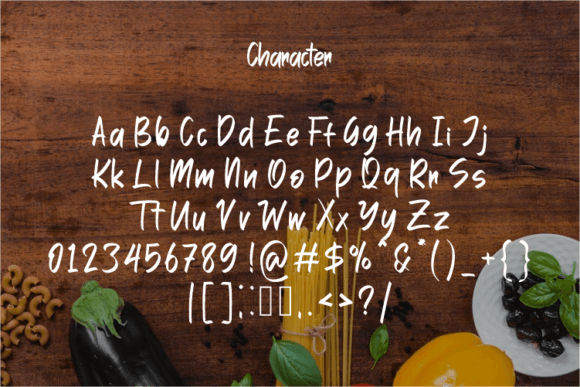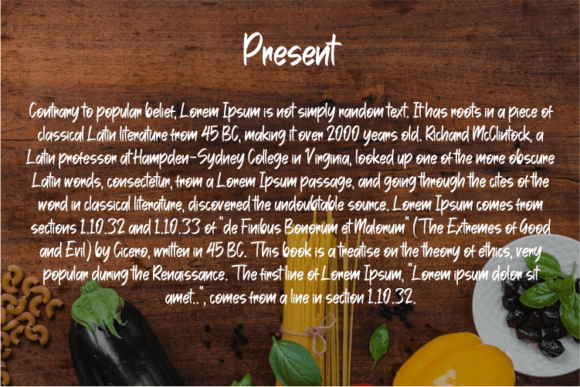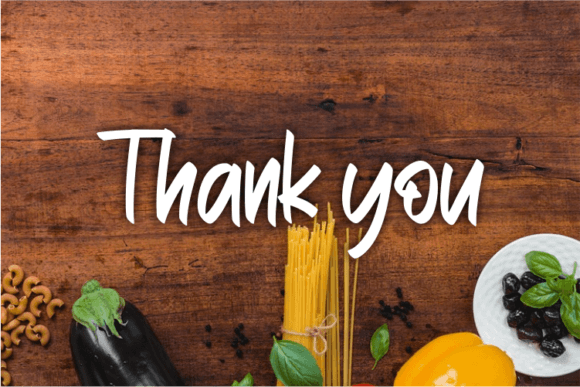
Discover the Modern Simplicity of Go Healthy Font
Go Healthy Font is a clean and stylish handwritten typeface designed to bring a fresh, modern look to your creative projects. Its simple yet elegant strokes make it perfect for creating luxurious and polished designs. Whether you are working on logos, book or movie titles, fashion branding, or editorial layouts, Go Healthy Font adds a sophisticated touch.
This font blends contemporary minimalism with handcrafted charm, making it versatile for various design styles and applications.
Wide Range of Creative Uses
Go Healthy Font is perfect for a variety of projects, such as:
Elegant and luxurious logos
Book covers and movie titles
Fashion brand identities
Magazine layouts and editorial designs
Clothing and merchandise branding
Inspirational quotes and social media graphics
Its modern handwritten style helps you create clean, stylish visuals that stand out with subtle personality.
The font’s balanced kerning and clear letter spacing ensure excellent readability across different sizes and media.
Why Designers Love Go Healthy Font
Designers appreciate Go Healthy Font for its ability to combine simplicity with sophistication. It provides a fresh, handcrafted look that feels both modern and timeless. Whether you are a professional or a creative hobbyist, this font helps elevate your projects with style and clarity.
Use Go Healthy Font to create memorable logos, stylish titles, or elegant branding that resonates with your audience.